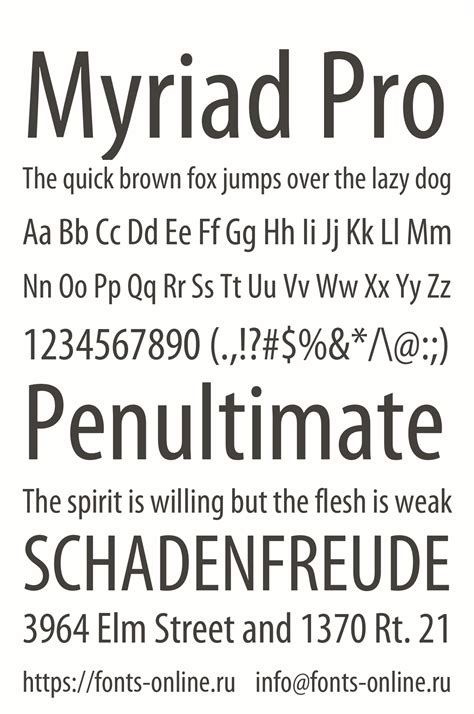
The font family is myriadregular. Web individual styles from $29.00. Detailed information on the myriadpro regular font: Since it was made available in a pro cha skip to main content But in case of commercial use, a license is. Web released in 1992, the myriad typeface family has become a popular choice for both text and display composition. A typeface with 8 styles, available from adobe fonts for sync. Click the download button to download the. This typeface has forty styles and was published by adobe. Web myriad® regular | fonts.com designers:
Myriad font family was designed by robert slimbach, carol twombly and published by adobe. Myriad font family was designed by robert slimbach, carol twombly and published by adobe. An adobe originals design first released in 1992, myriad. Sans serif, grotesque sans buy from 35 view family select font. Click the download button to download the. Web individual styles from $29.00. ← back to family page. Web consider adding them to your font library today. This typeface has forty styles and was published by adobe. All the creative assets you need under one subscription! Web myriad arabic regular is a regular truetype font.